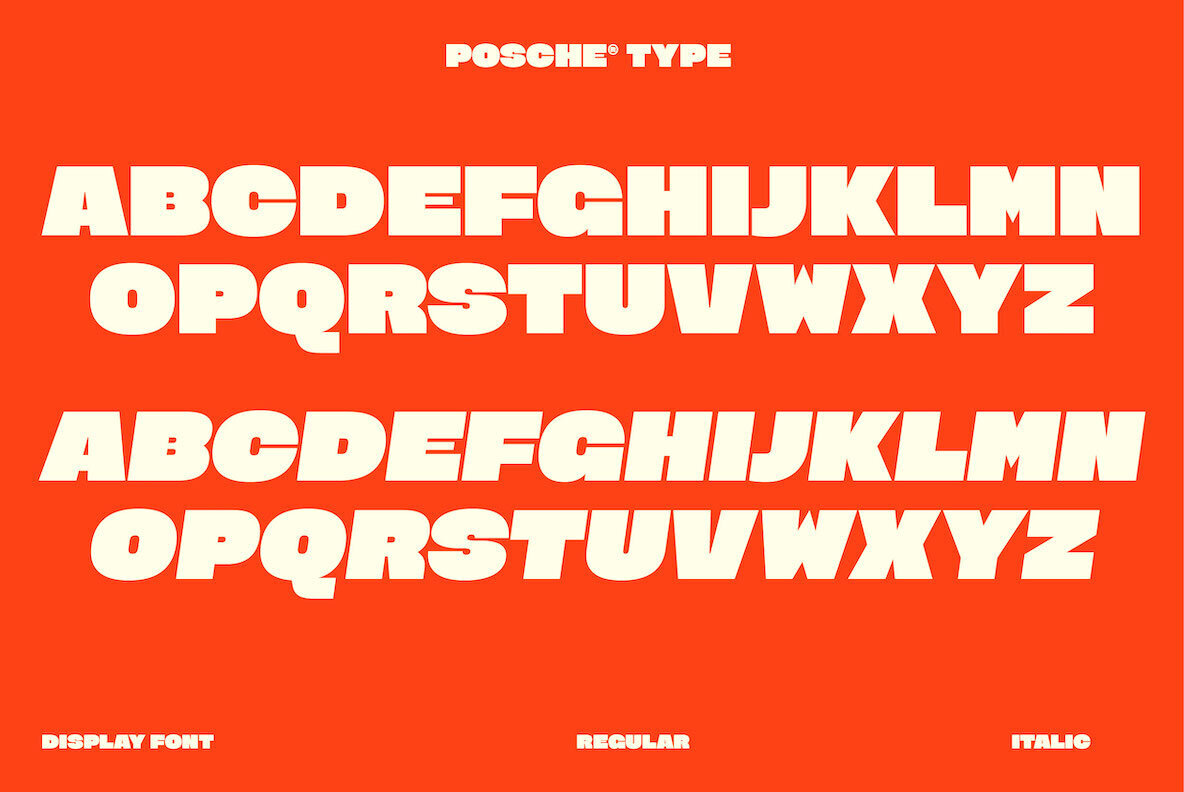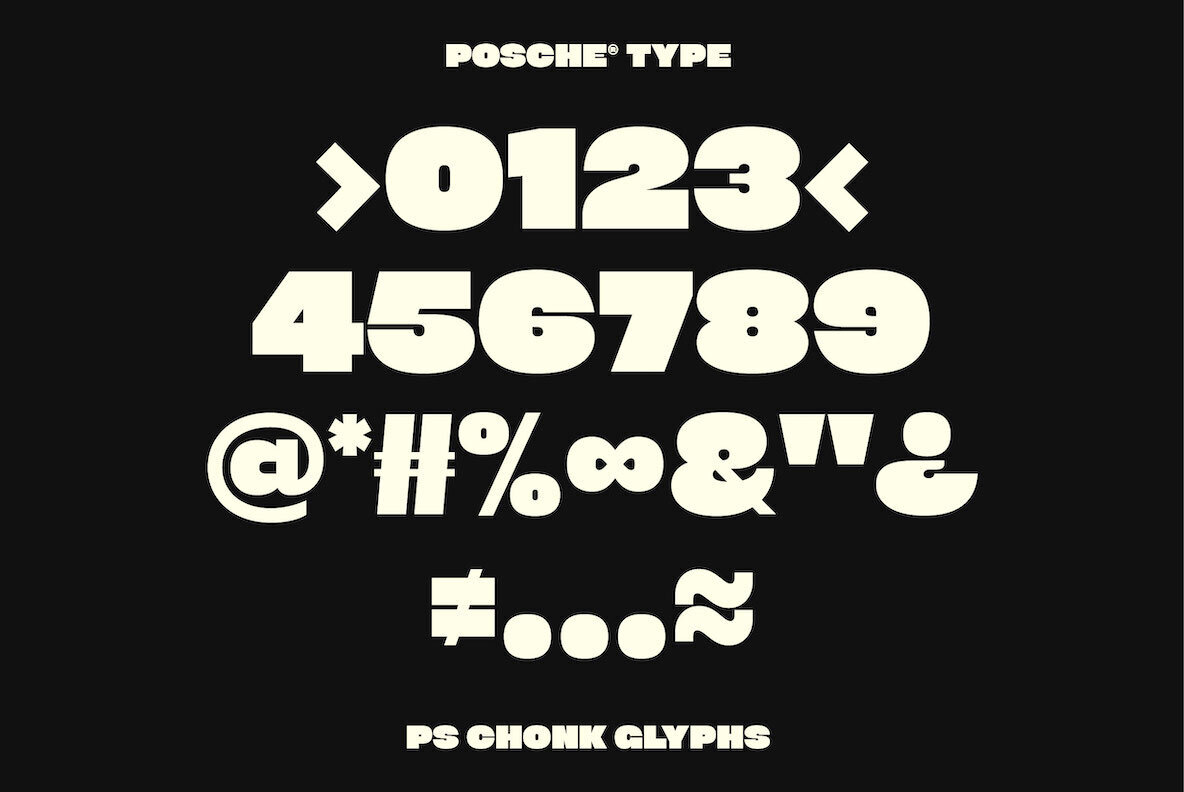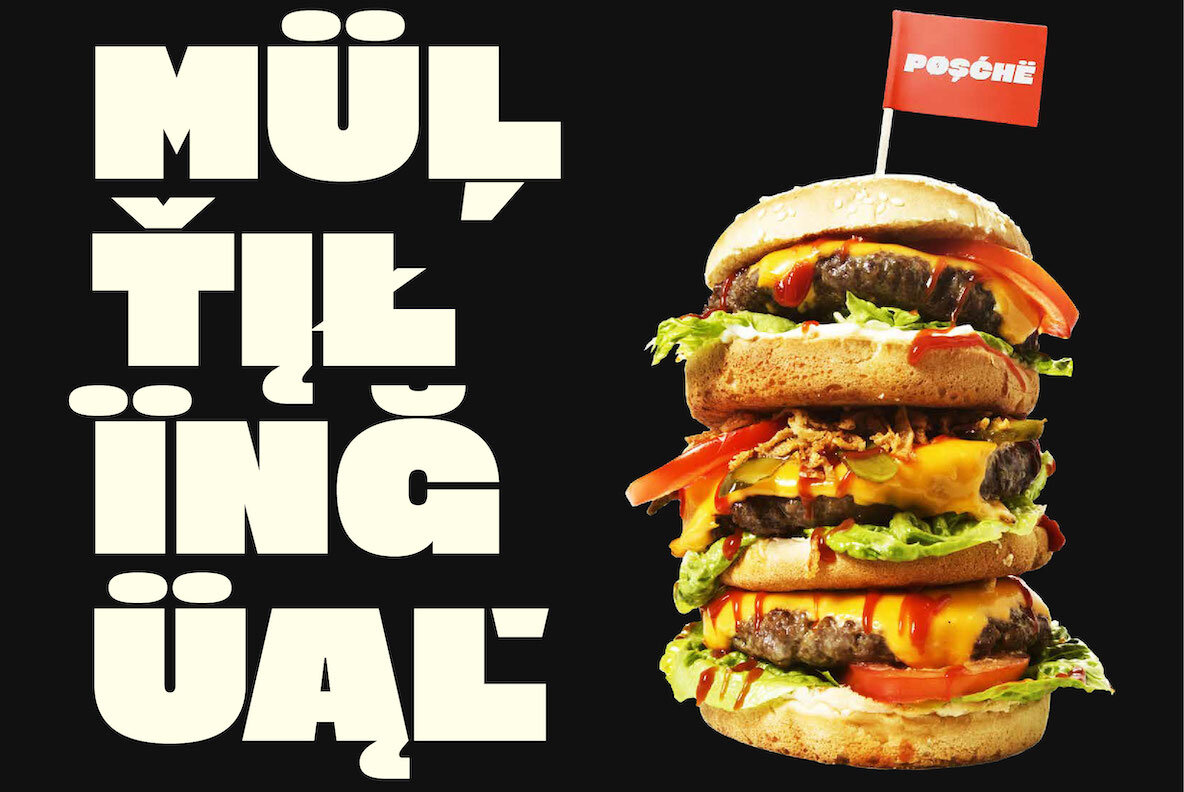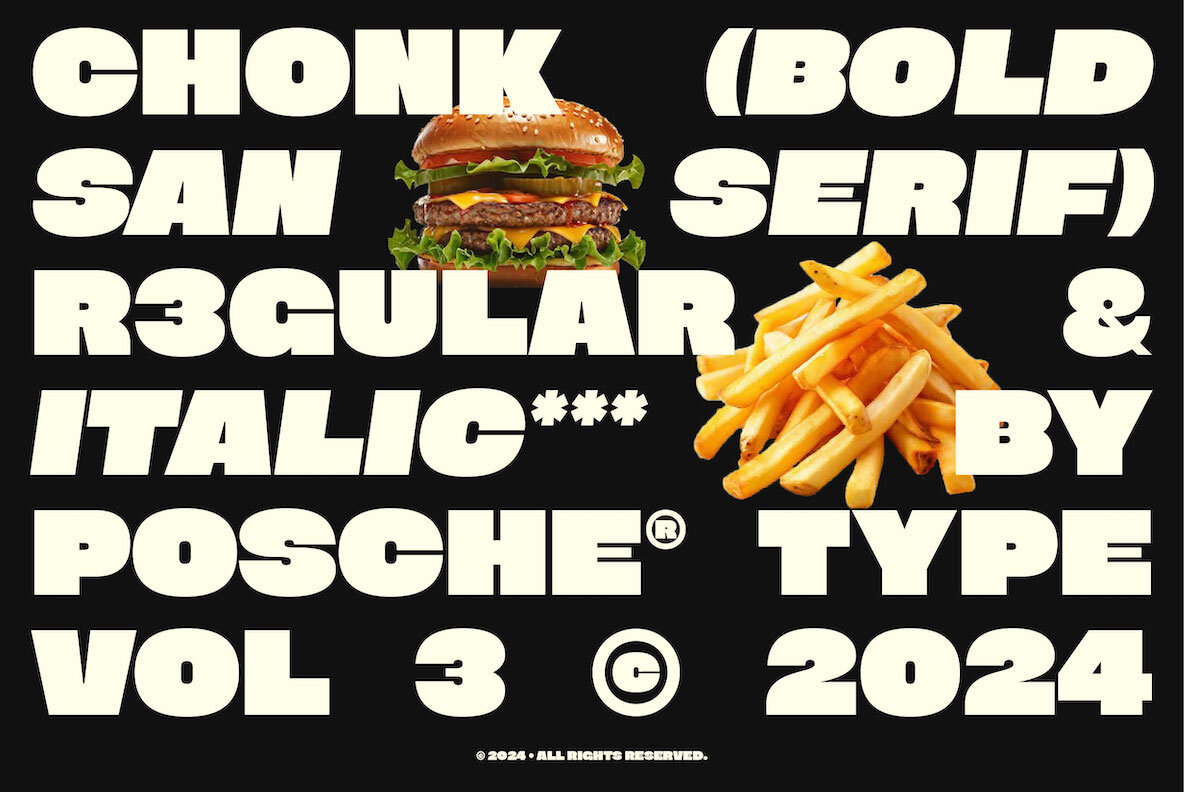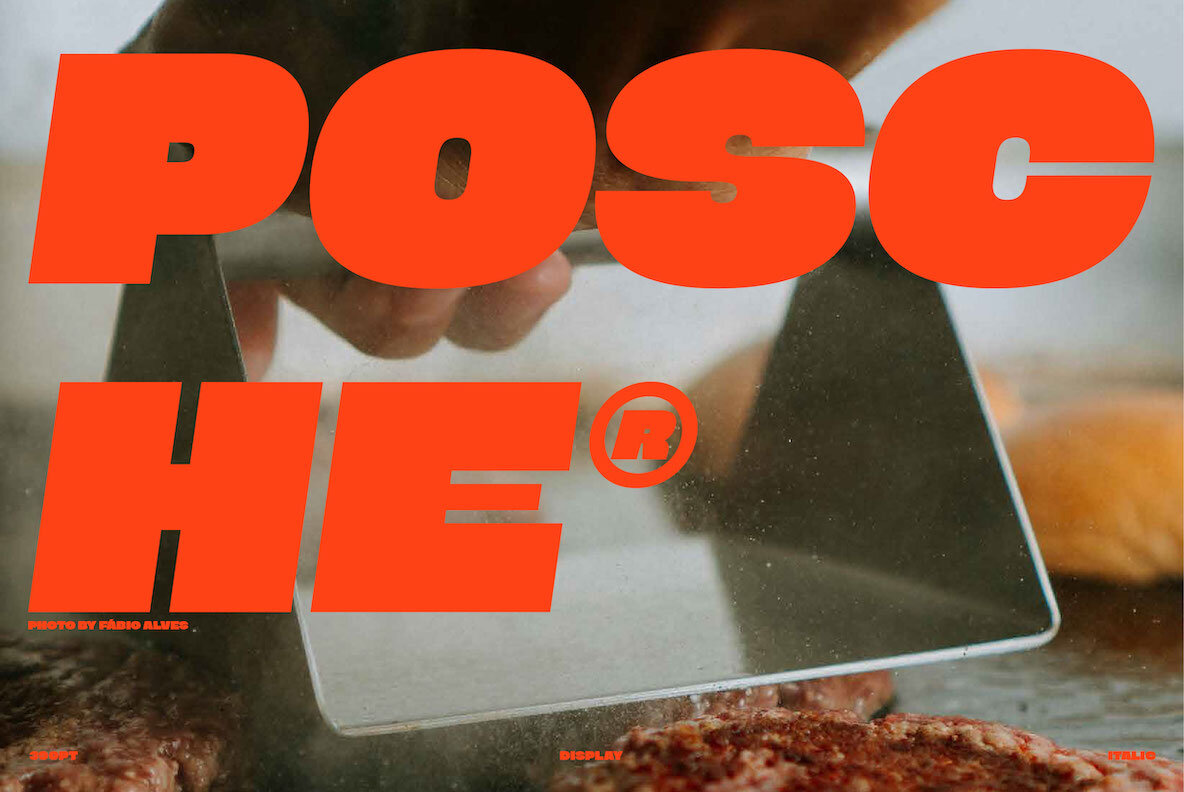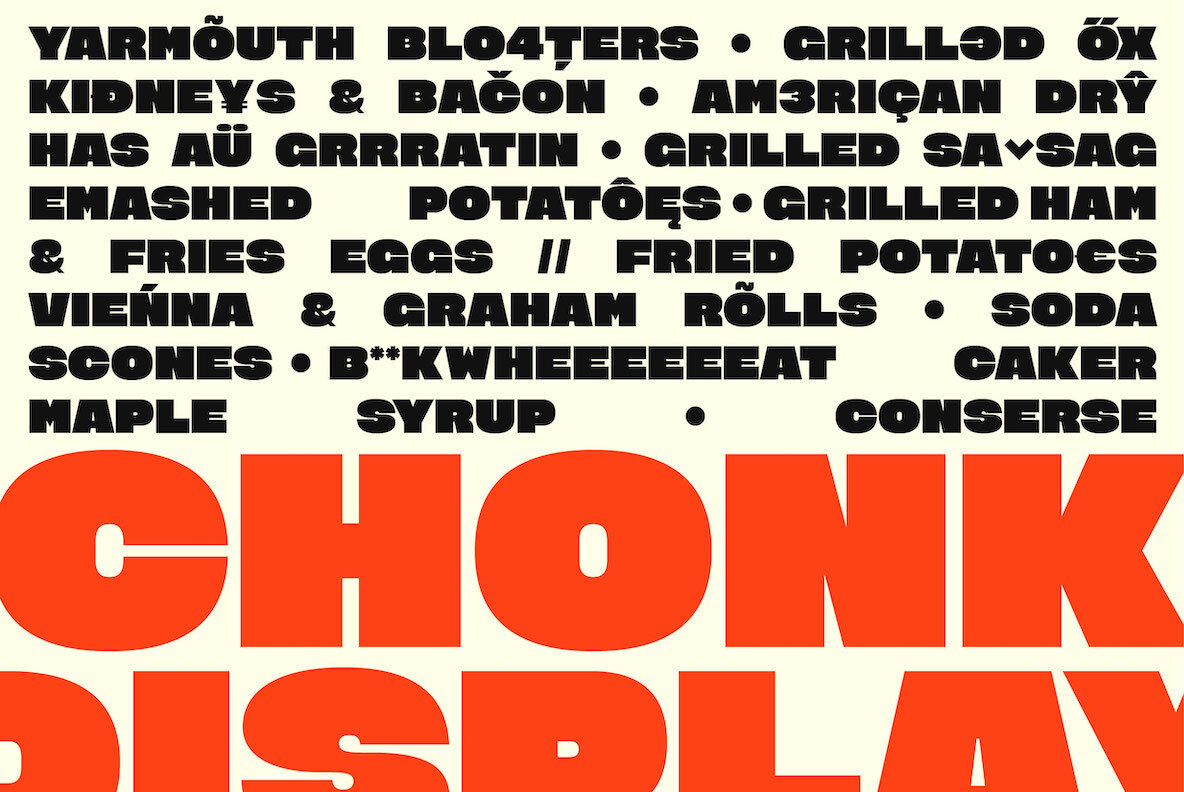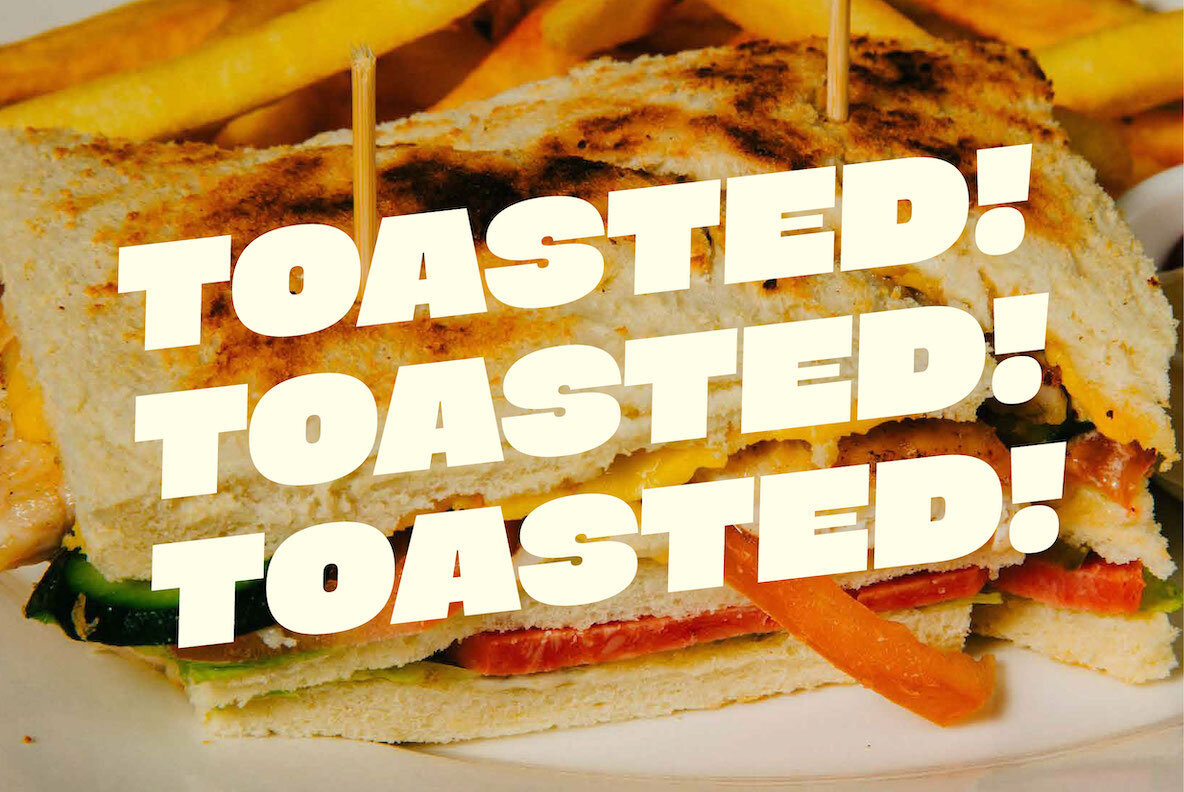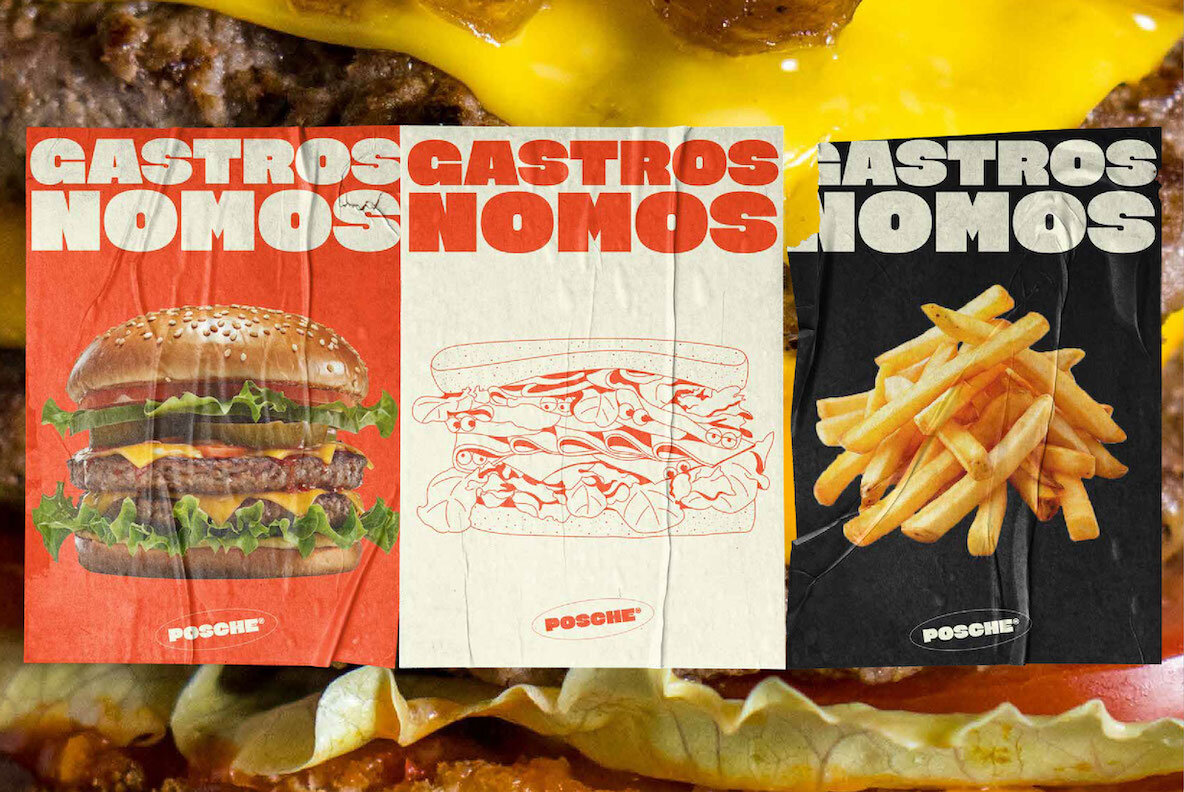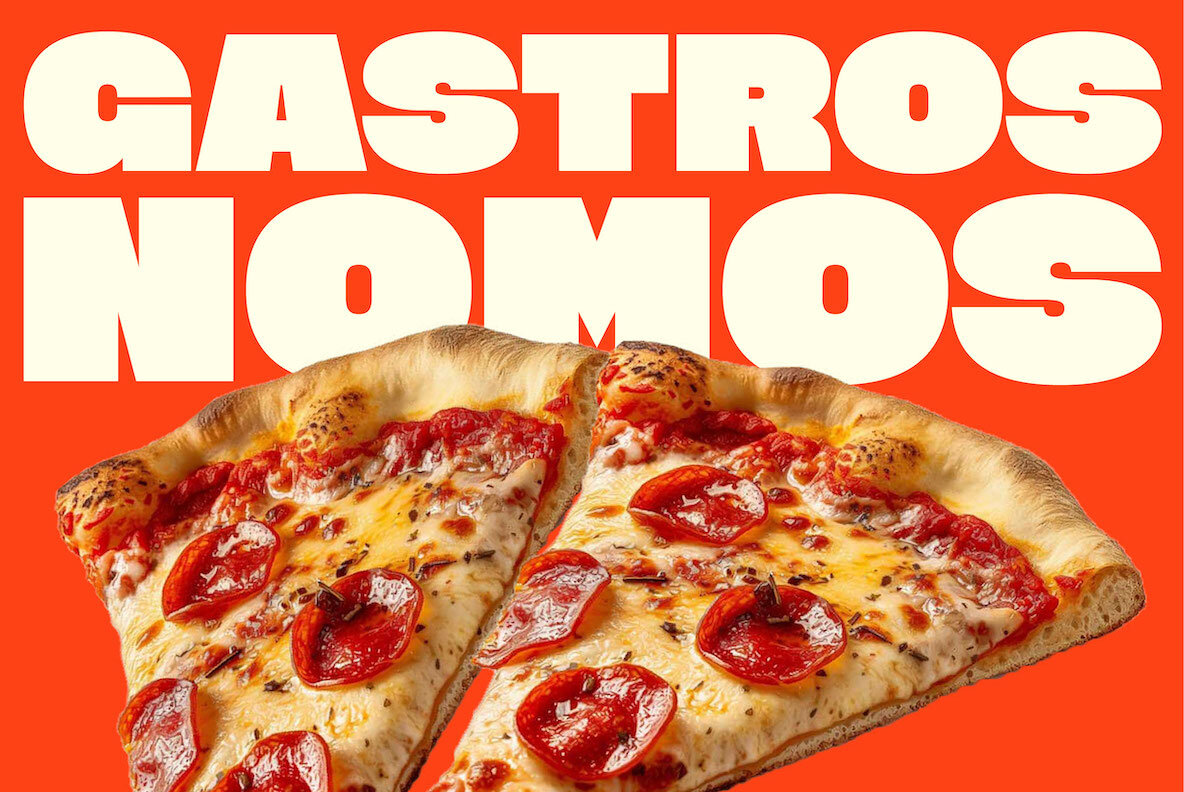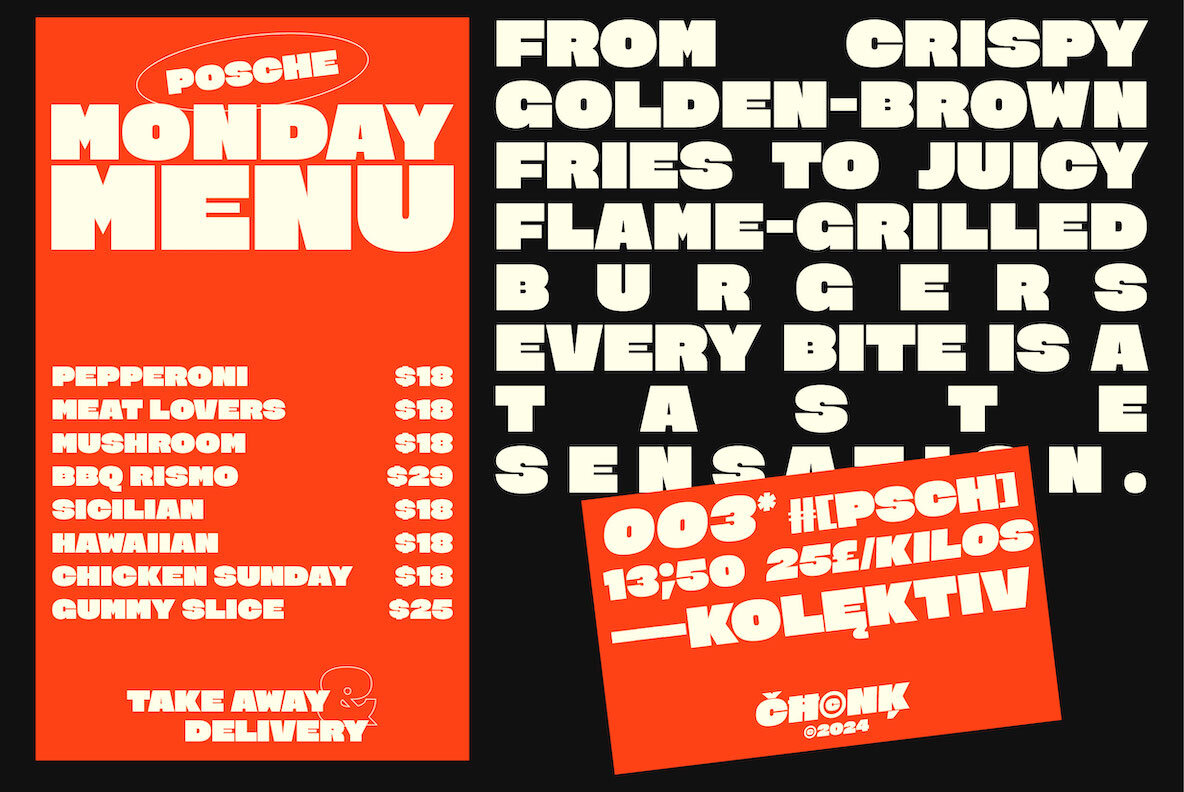
PS Chonk Font
PS CHONK Regular
PS CHONK Italic
PS Chonk is a bold, all-caps sans-serif typeface available in Regular and Italic variations. Its versatile design seamlessly integrates into various creative projects, making it ideal for branding applications such as food and beverage labels, posters, packaging, social media graphics, and stationery.
This typeface supports Latin Extended, covering Western European, Central European, and Southeastern European languages, ensuring wide usability across diverse linguistic needs. PS Chonk's clean lines and strong presence make it a smart choice for designers seeking a modern and impactful font for their projects.